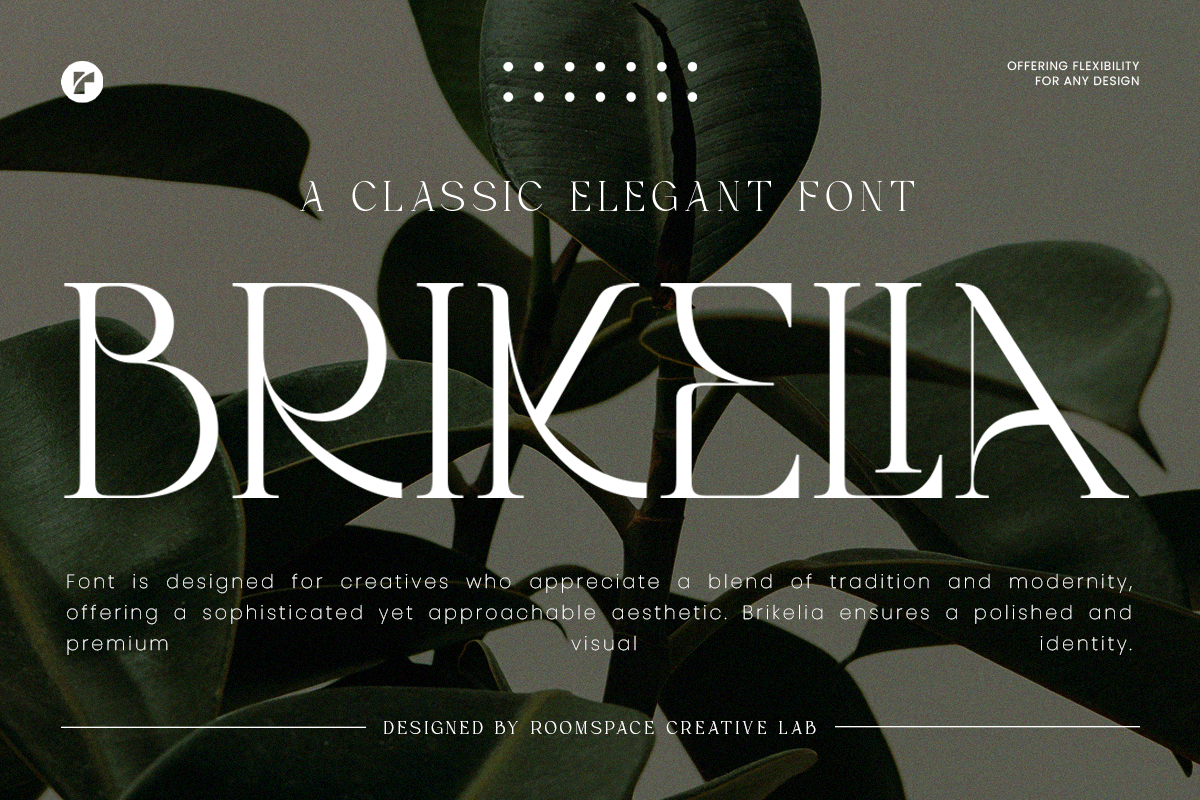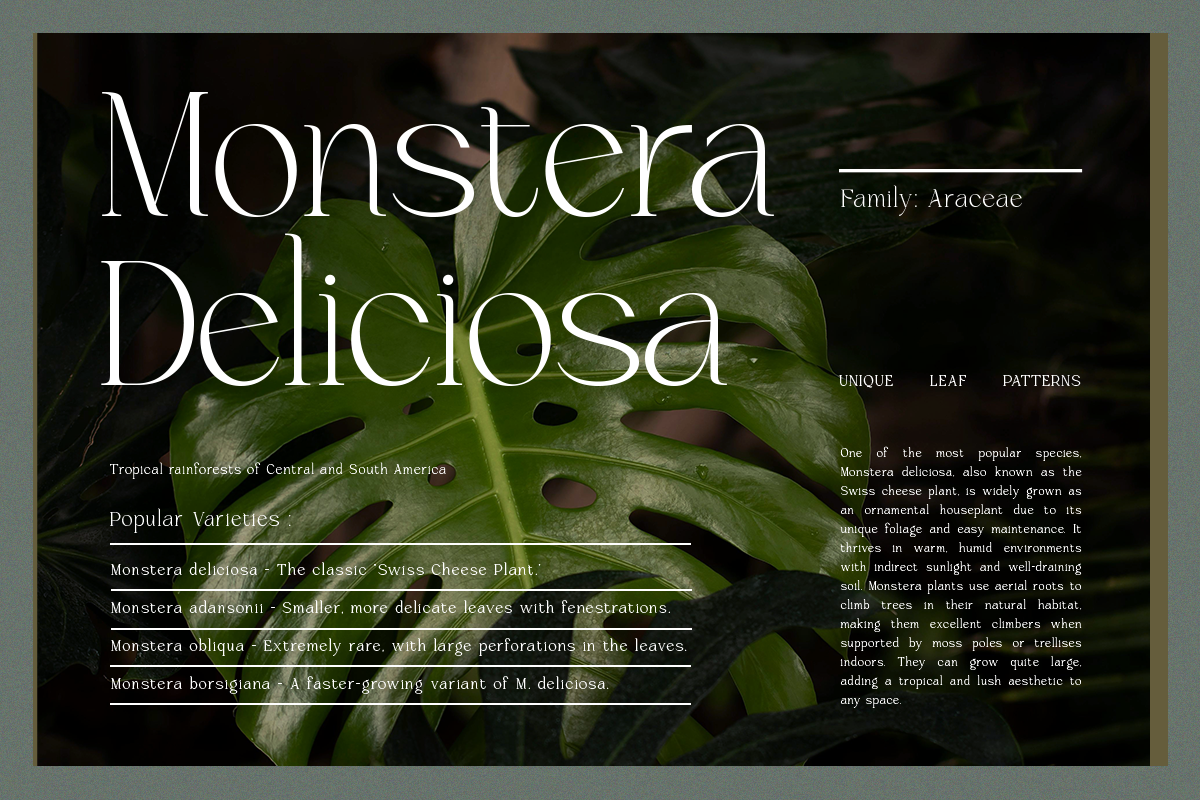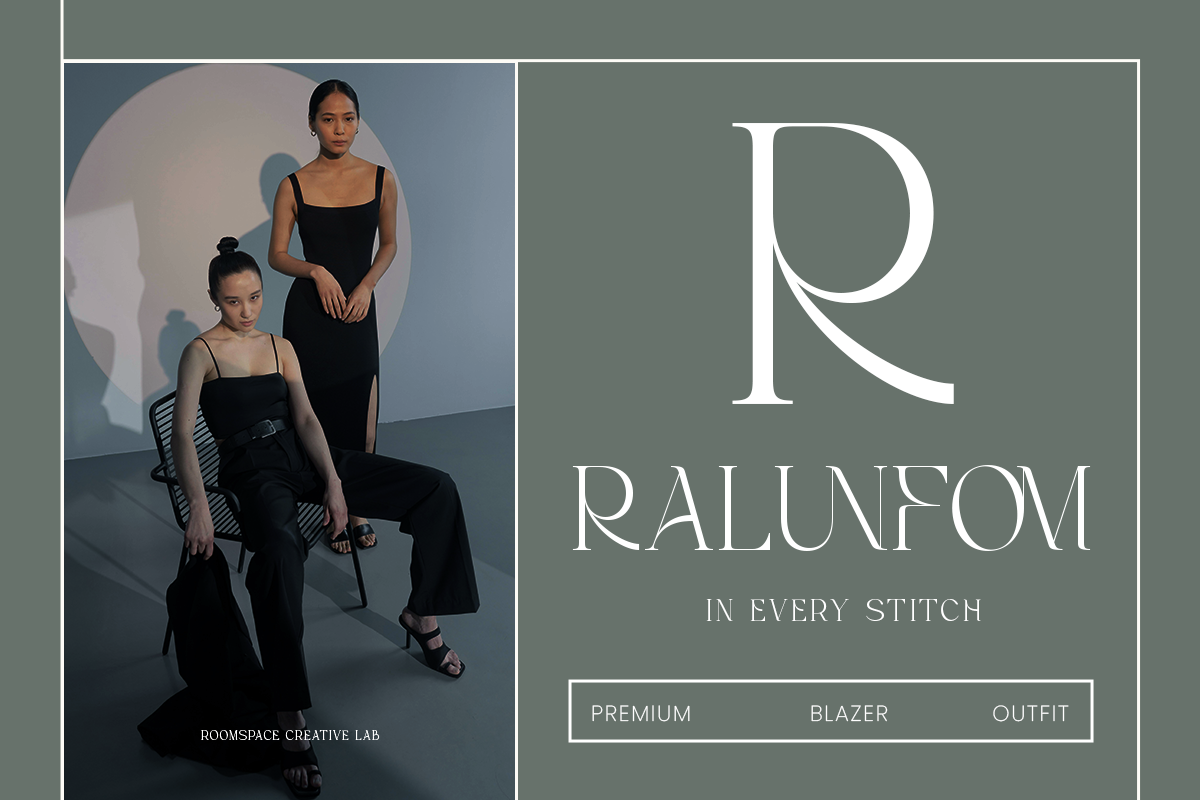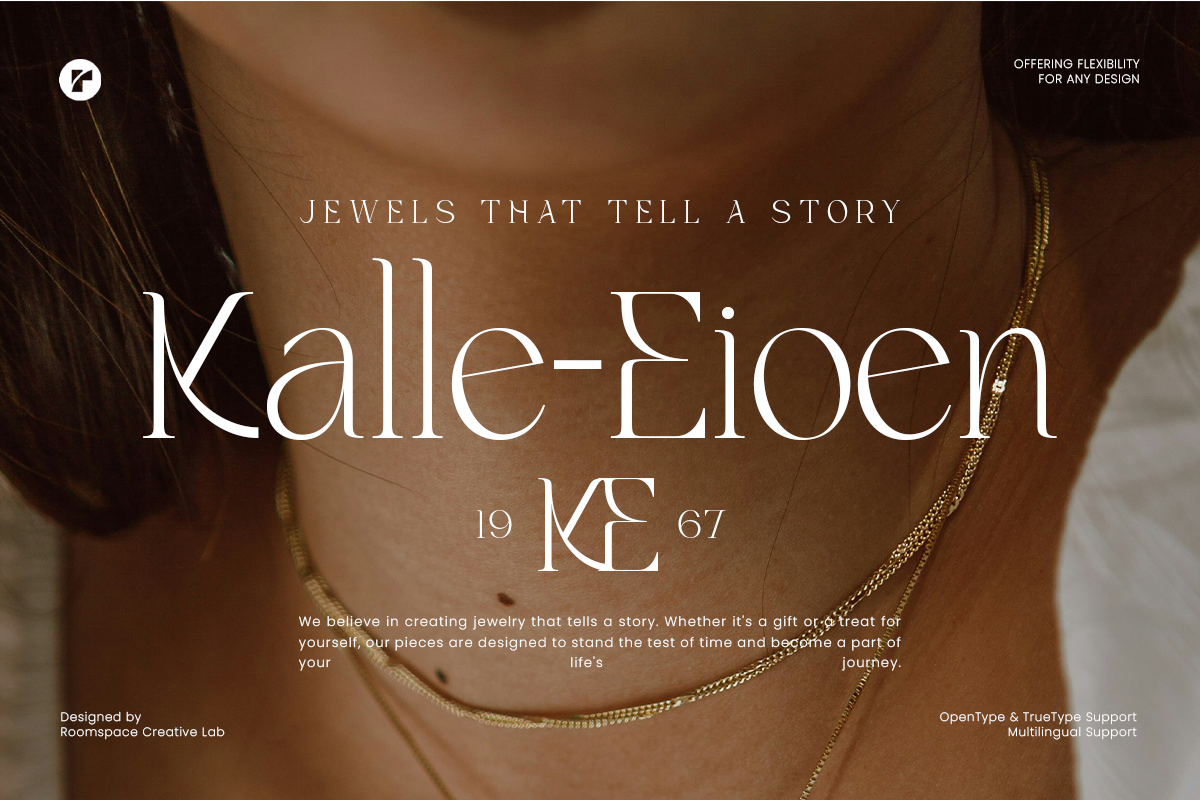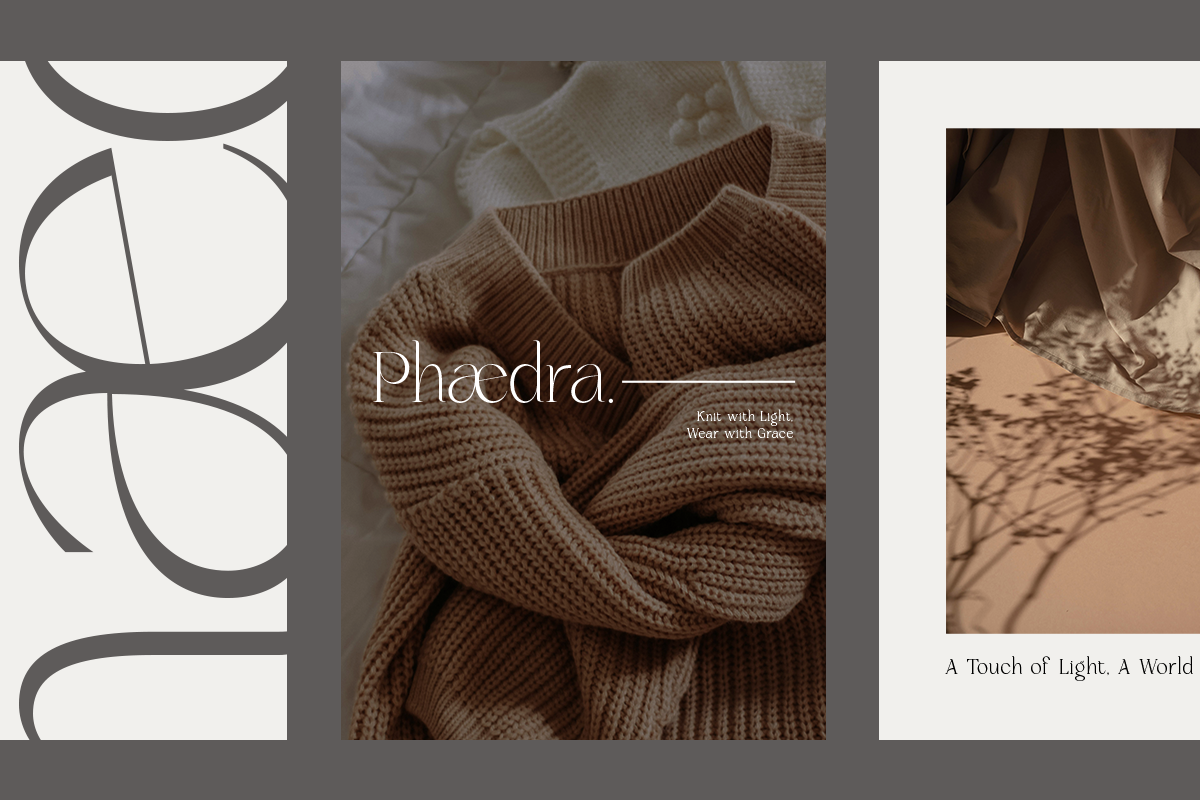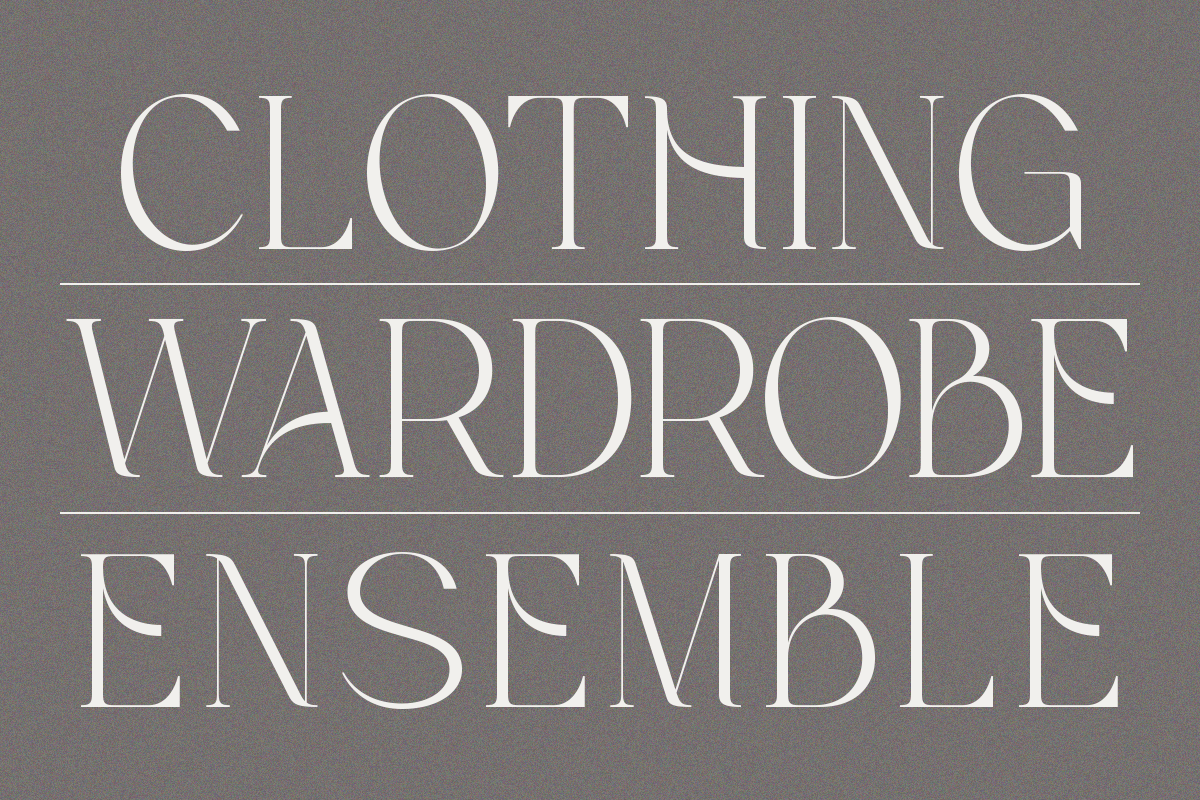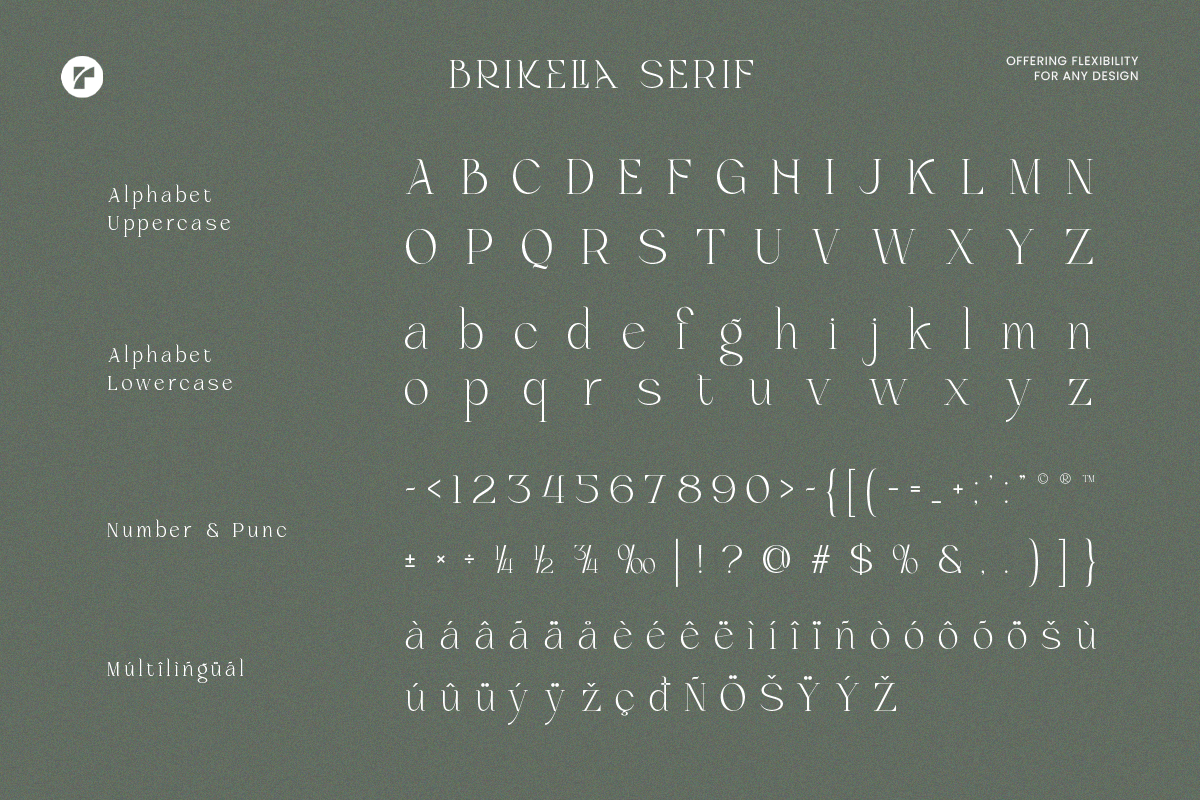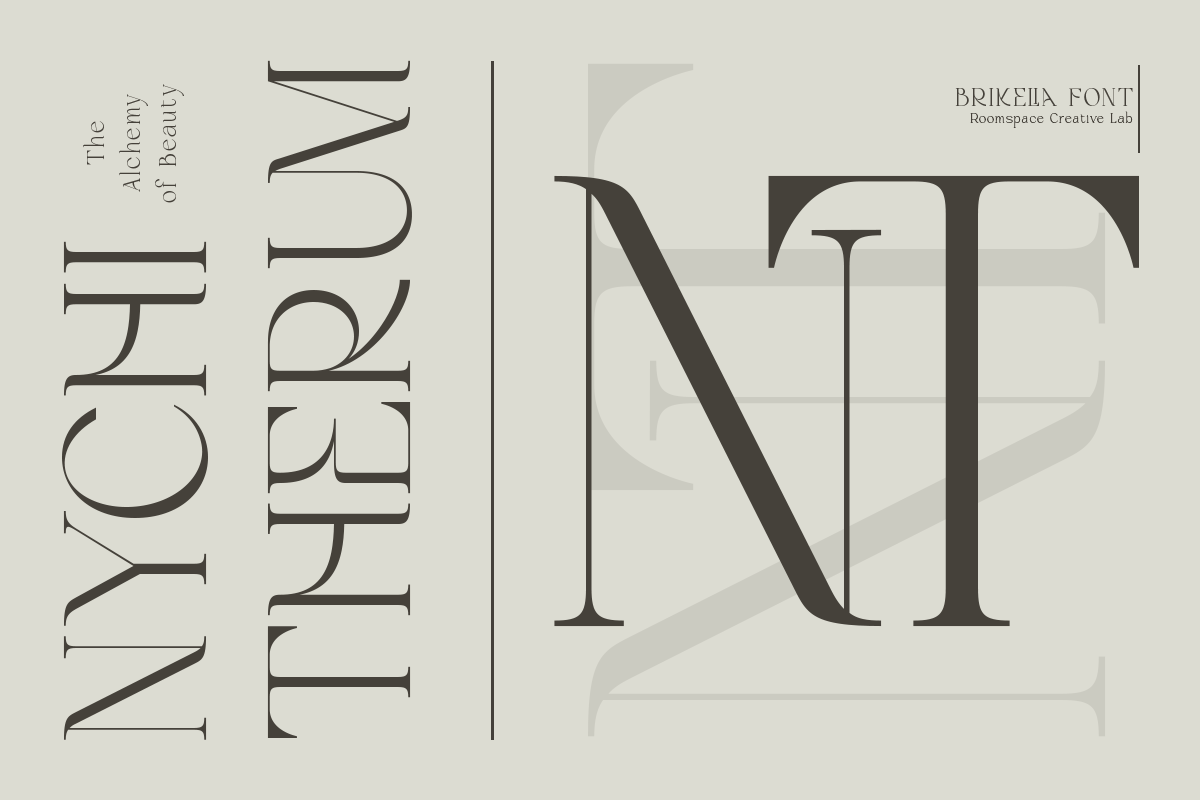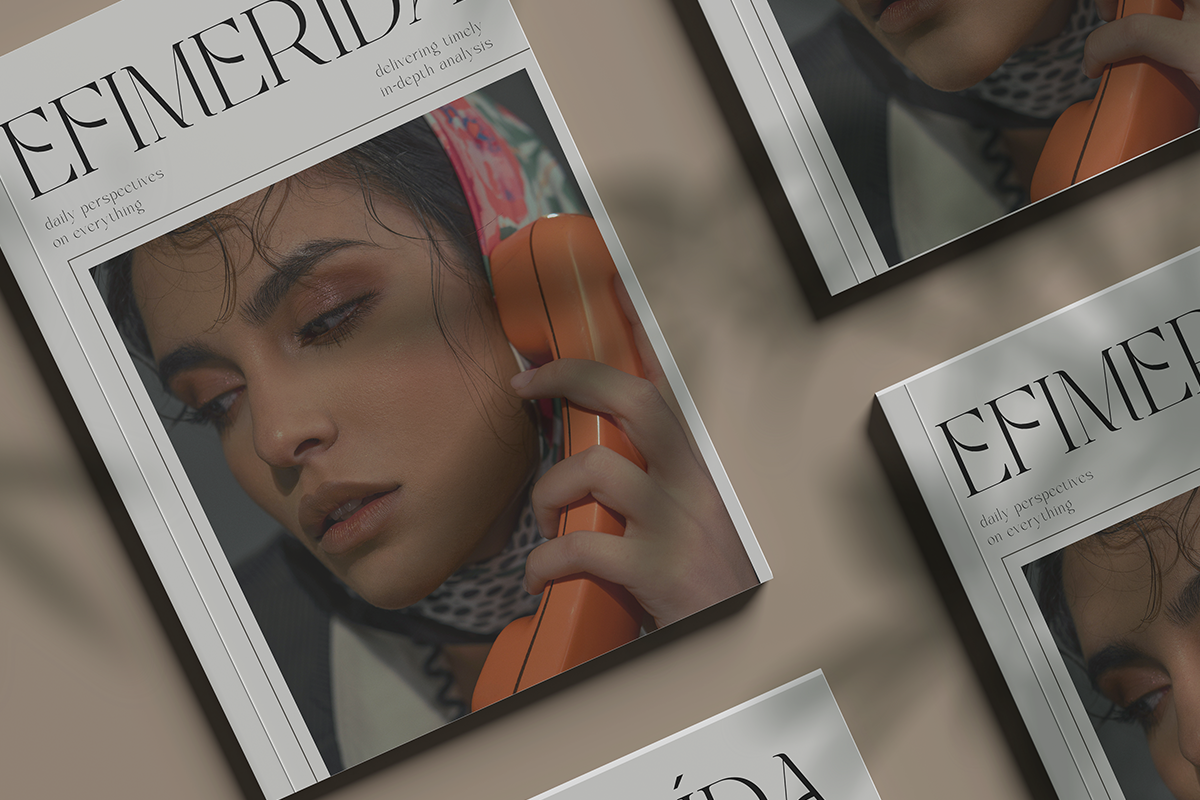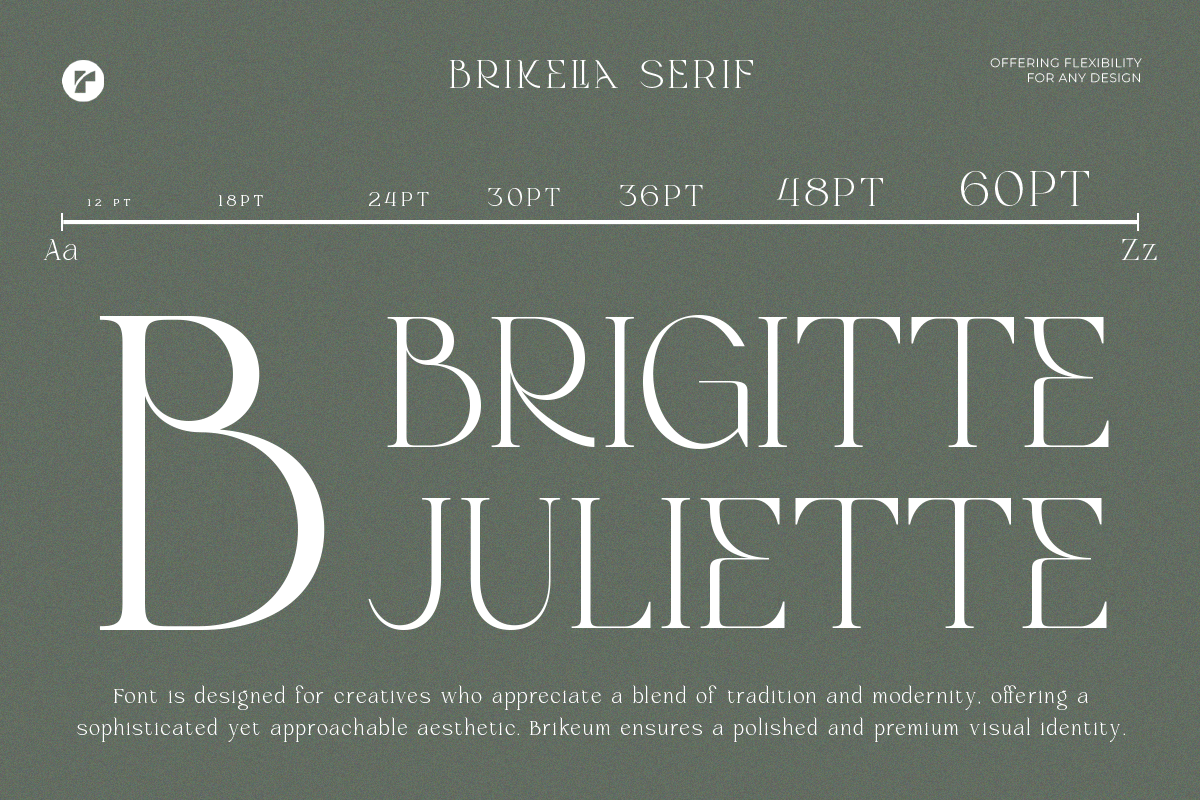
Brikelia Minimalist Fashionable Font
Brikelia, a modern, minimalist font designed to elevate your creative projects. With clean lines and a sleek look, it’s perfect for adding a touch of style to any design. Whether you’re working on branding, logos, or graphics, Brikelia offers a simple yet elegant solution for modern creators.
Its easy readability and stylish appearance make it ideal for a variety of projects—from fashion to corporate designs. Plus, with its versatile character set and unique appeal, Brikelia adapts effortlessly to both print and digital designs. Whether you're crafting a modern website, a trendy fashion campaign, or sleek product packaging, Brikelia ensures your message is communicated clearly and stylishly.